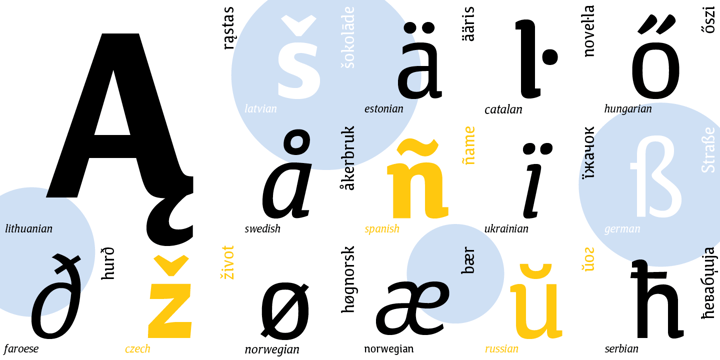
Calendula
La familia tipográfica Calendula fue diseñada por Natalia Vasilyeva y publicada por ParaType. Calendula contiene 8 estilos y opciones de paquete familiar.
Calendula is a humanistic font with low contrast and one-sided serifs. There are eight styles: four regular of different weights from Light to Bold and corresponding italics. The main set of regular styles is close to upright italics, so the font is percieved as informal and friendly. However, Calendula allows you to combine business with pleasure by switching the stylistic set, and turns into a calm text font with traditional upright forms. The font was designed by Natalia Vasilyeva and released by Paratype in 2017.